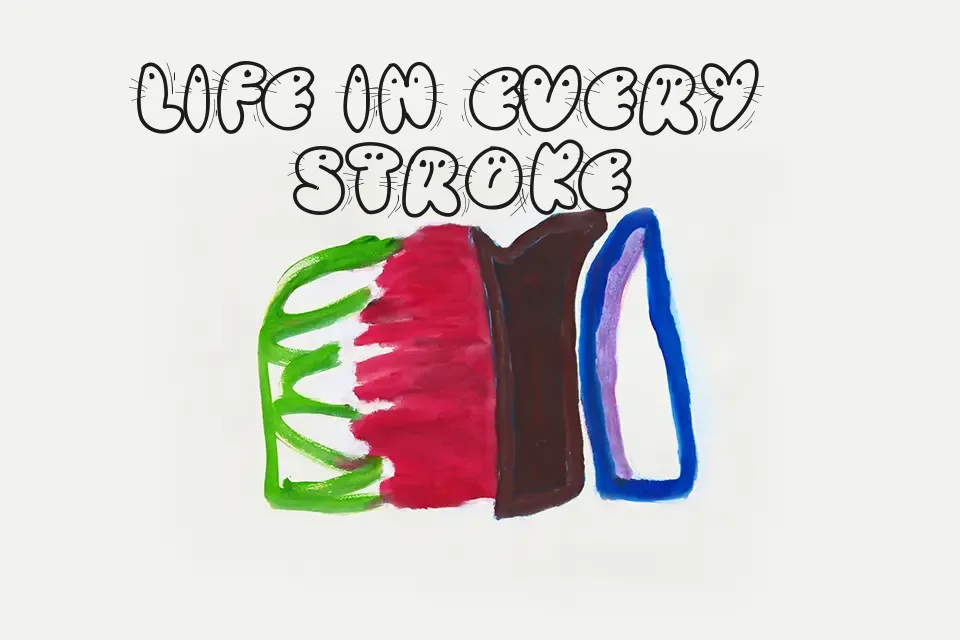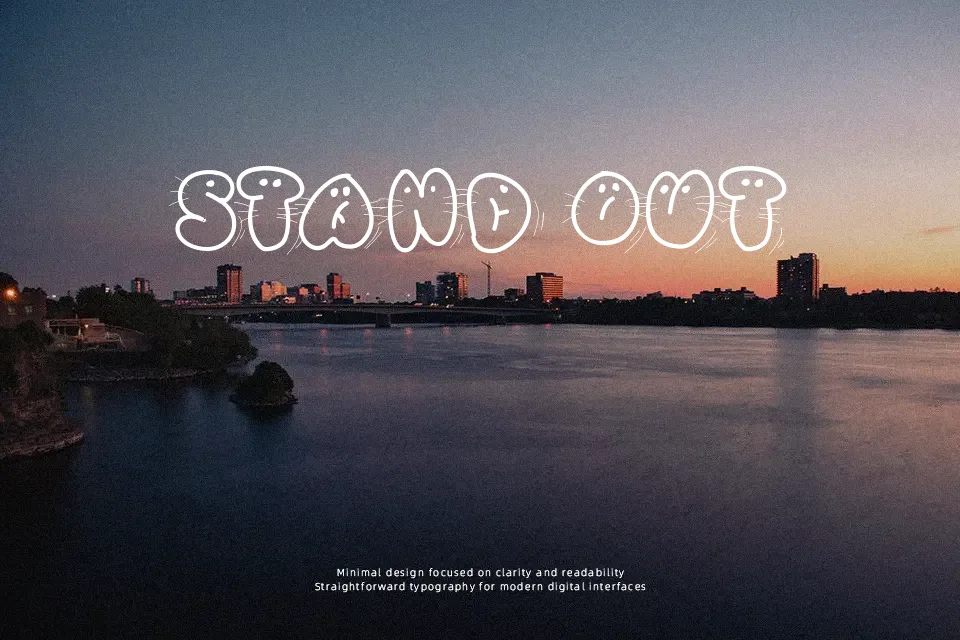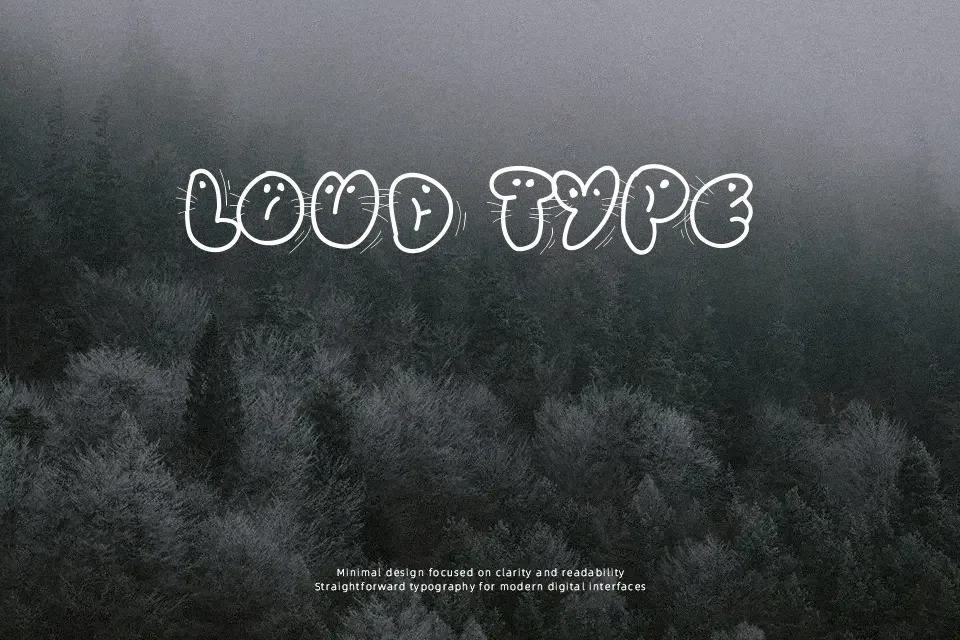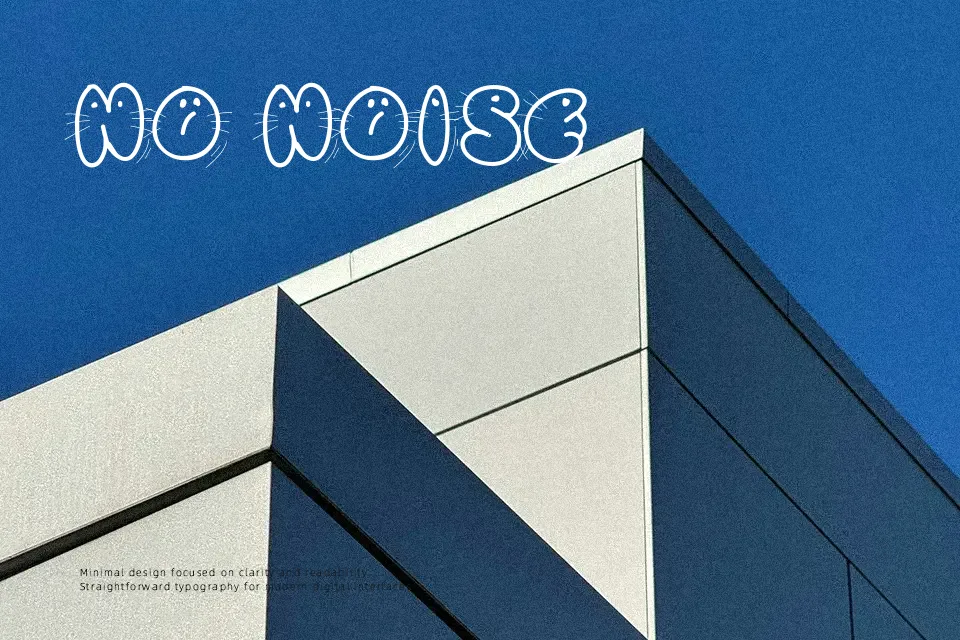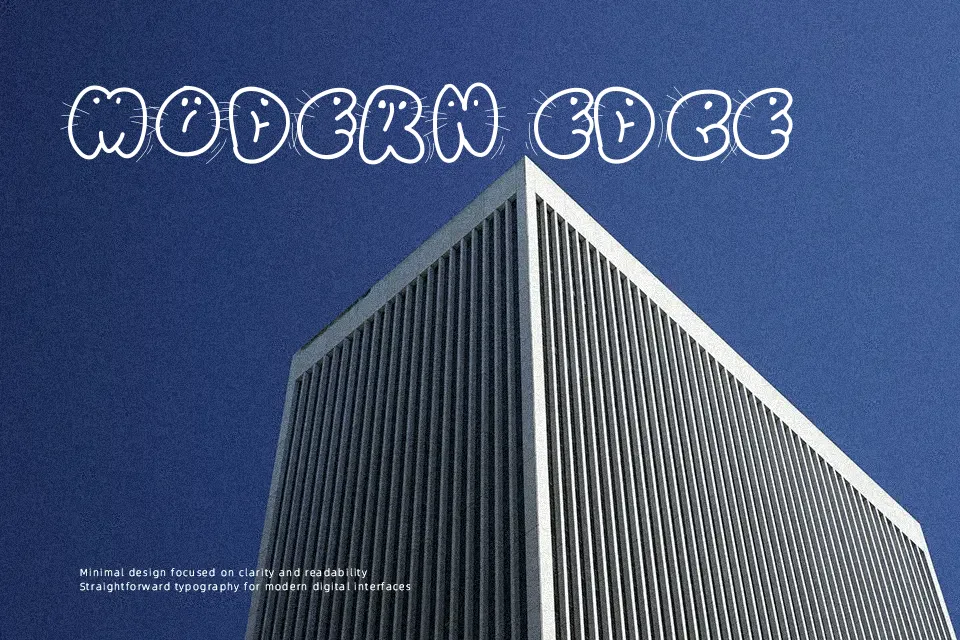
Animaletters Font
Designed by Peax Webdesign
Starting from bold, rounded strokes that form animal-themed silhouettes, Animaletters reads like a set of illustrated letter blocks rather than a conventional text face. The spacing is generous and the structure chunky, so single words and short titles stand out clearly even at larger sizes. Its style feels casual and decorative, leaning strongly into a playful, kid-focused mood suited to learning materials, party graphics, and informal branding for pet or toy-related projects. However, the detailed letterforms quickly become tiring in long sentences and do not scale down well for small UI or body text. Use it when you want a fun, image-like headline; avoid it when readability and neutrality matter more than character.
kids activity sheets and worksheets
birthday party invitations and banners
children’s book or story title lettering
long paragraph text or body copy
formal corporate presentations or reports
small-size UI labels or navigation text